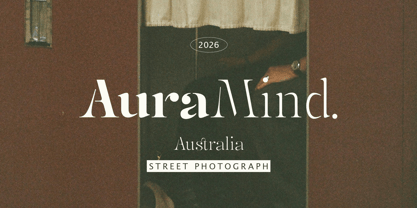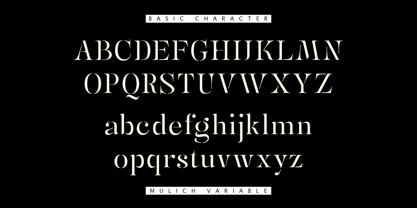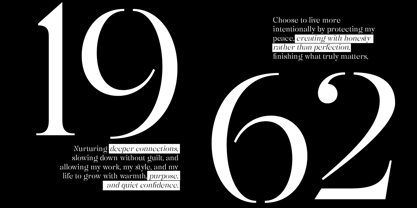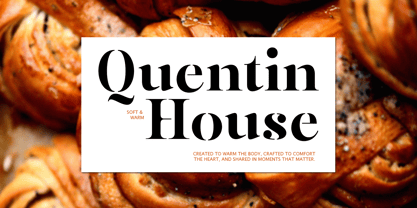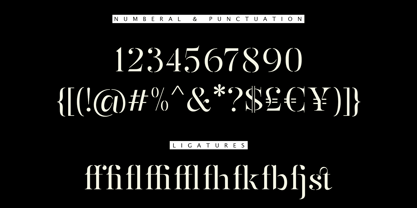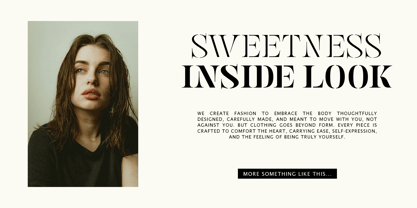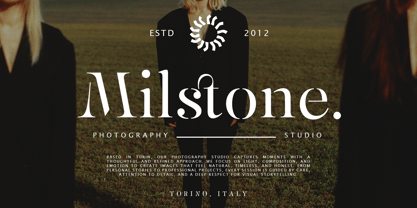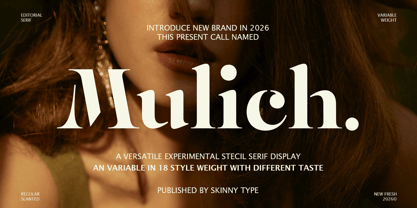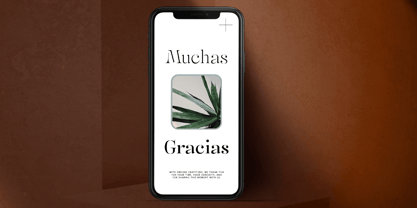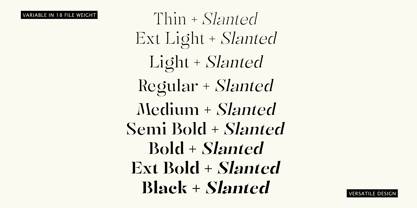
Mulich
by Skinny Type
The Mulich Font Family was designed by Muhajir and published by Skinny Type. Mulich contains 19 styles and family package options. More about this family
Mulich is an editorial-driven stencil serif display typeface that merges classical elegance with contemporary experimentation. Built upon high-contrast serif foundations, Mulich introduces carefully engineered stencil cuts that add texture, rhythm, and a bold visual identity without sacrificing clarity. The letterforms are expressive yet controlled—featuring sharp serifs, smooth curves, and sculpted negative spaces that create a refined but unconventional presence. Each stencil break functions as a design element, giving Mulich a distinctive voice suited for modern fashion, luxury branding, and high-impact editorial use. Developed as a variable font with 18 weight styles, Mulich allows seamless transitions from light and graceful to dense and authoritative. Each weight carries its own character, offering designers flexibility across diverse creative contexts. The inclusion of slanted styles adds movement and energy, expanding its expressive range for dynamic layouts and contemporary compositions. Key Features Font Category: Experimental Stencil Serif Display Design Approach: Editorial serif with modern stencil construction Font Technology: Variable font Weight Range: 18 variable weight styles Styles: Regular & Slanted Contrast: High contrast strokes Personality: Elegant, bold, fashion-forward, expressive Recommended Usage: Fashion & luxury branding Editorial headlines Magazine covers Posters & advertising campaigns Art direction & visual identity systems
Designers: Muhajir
Foundry: Skinny Type